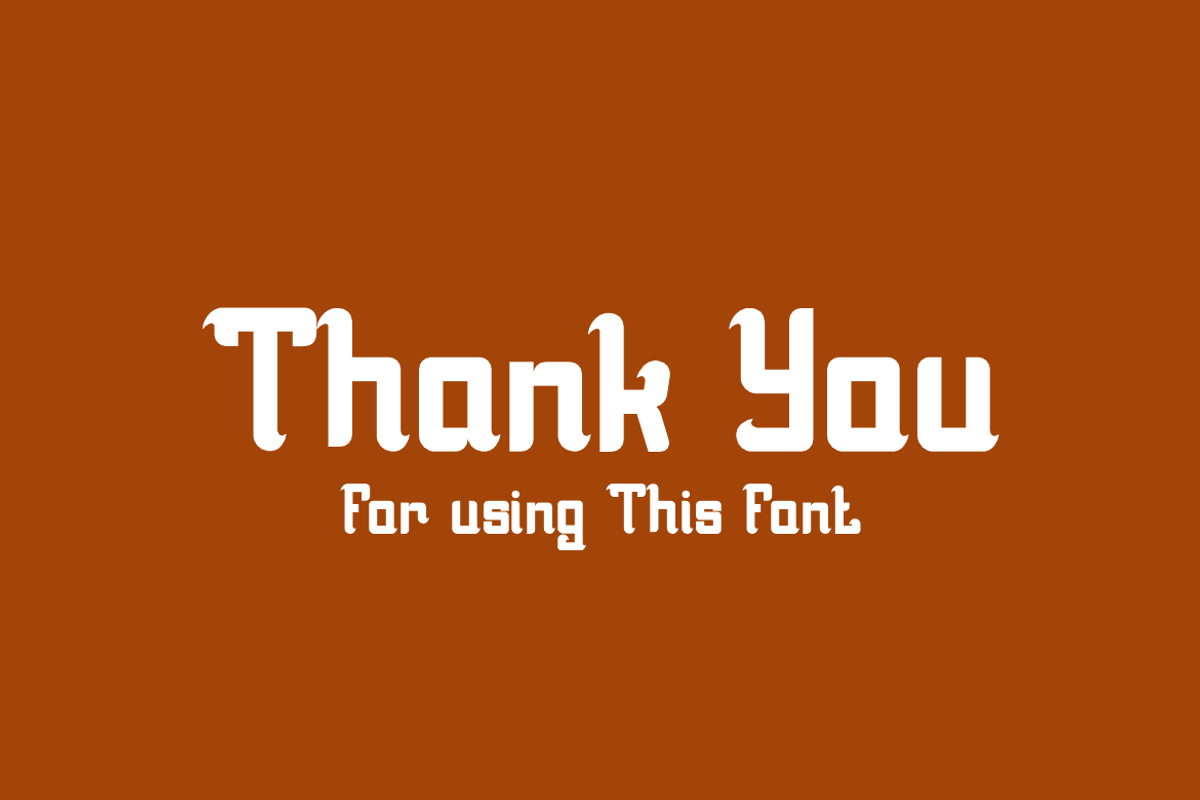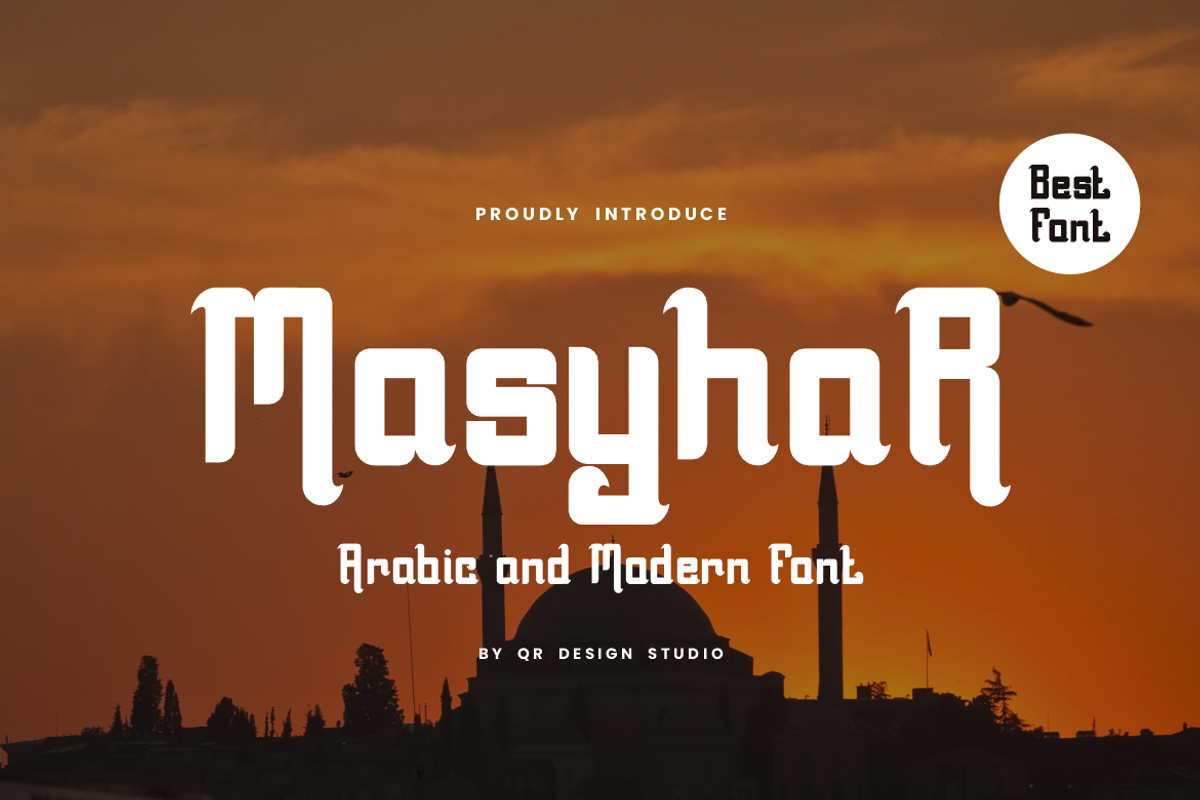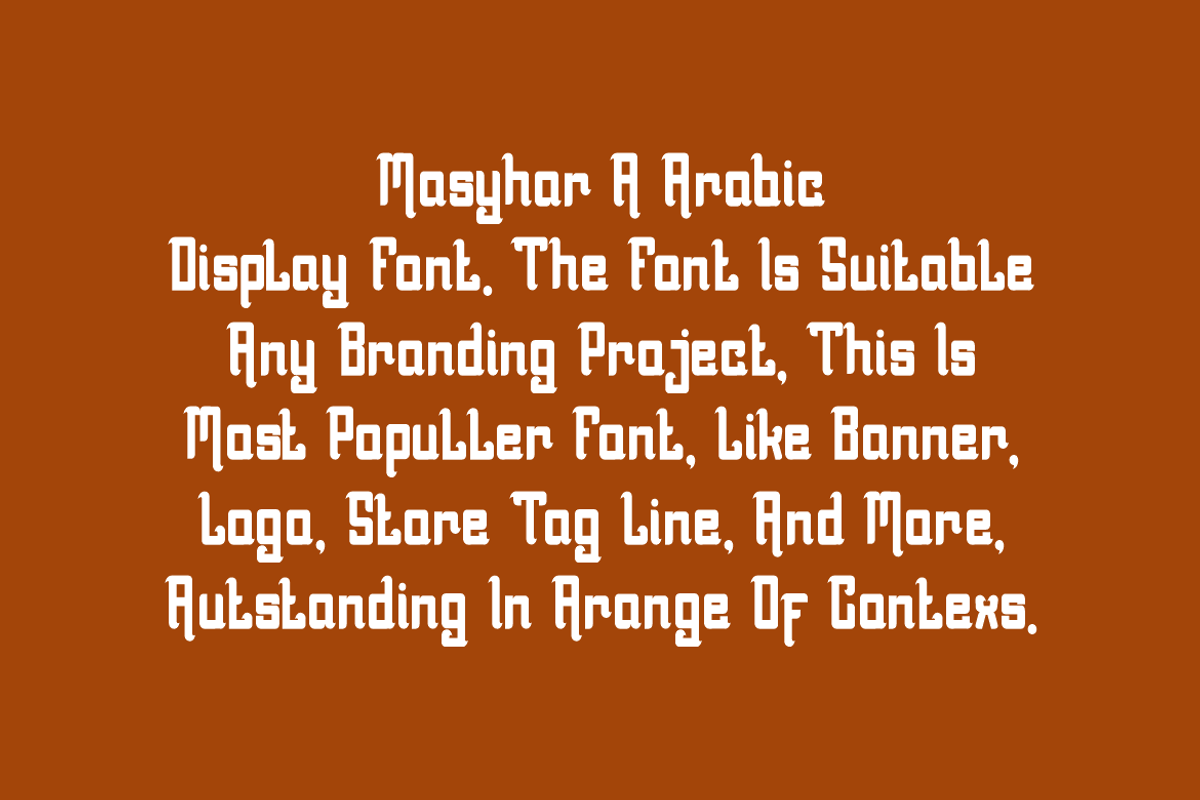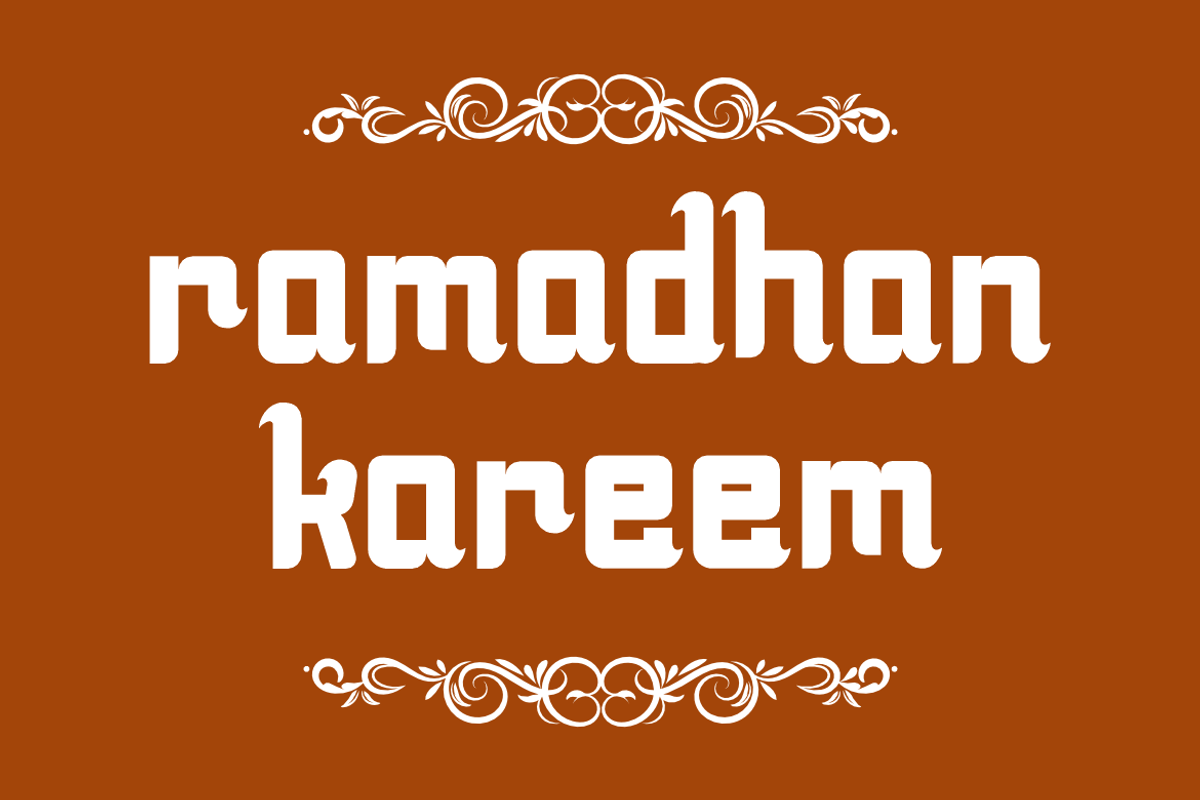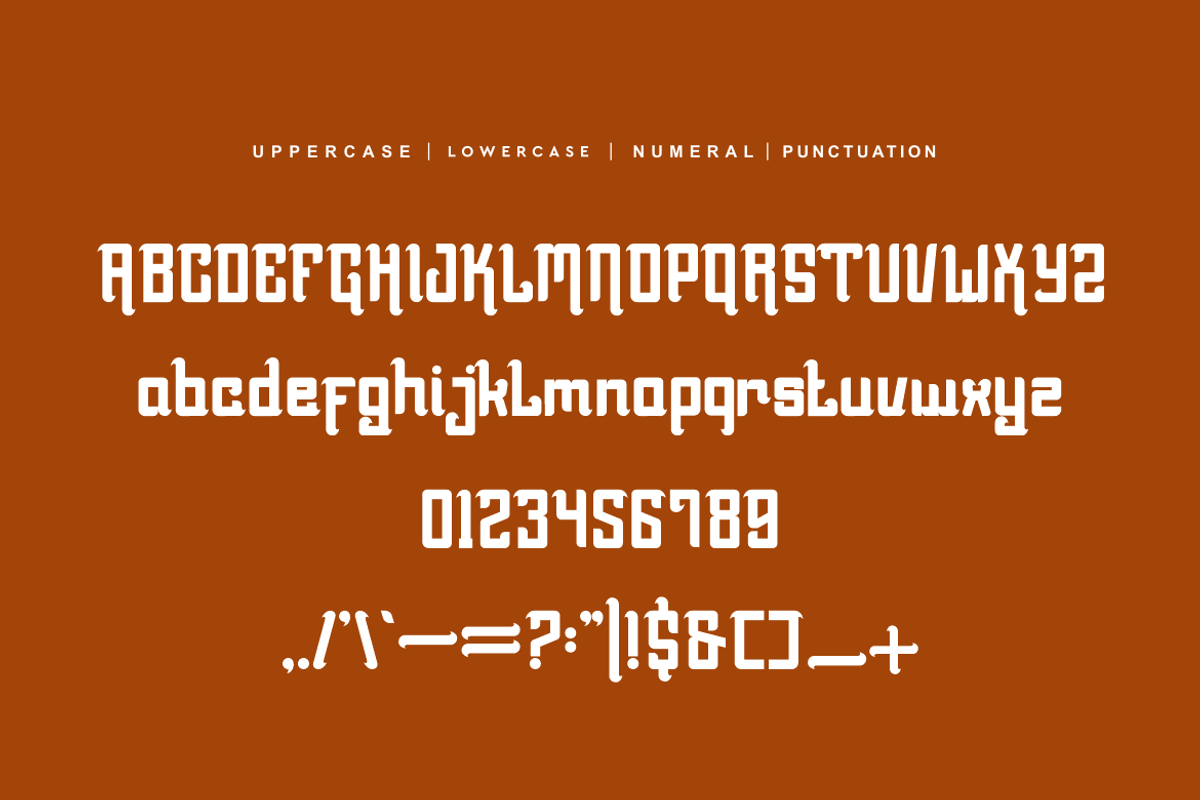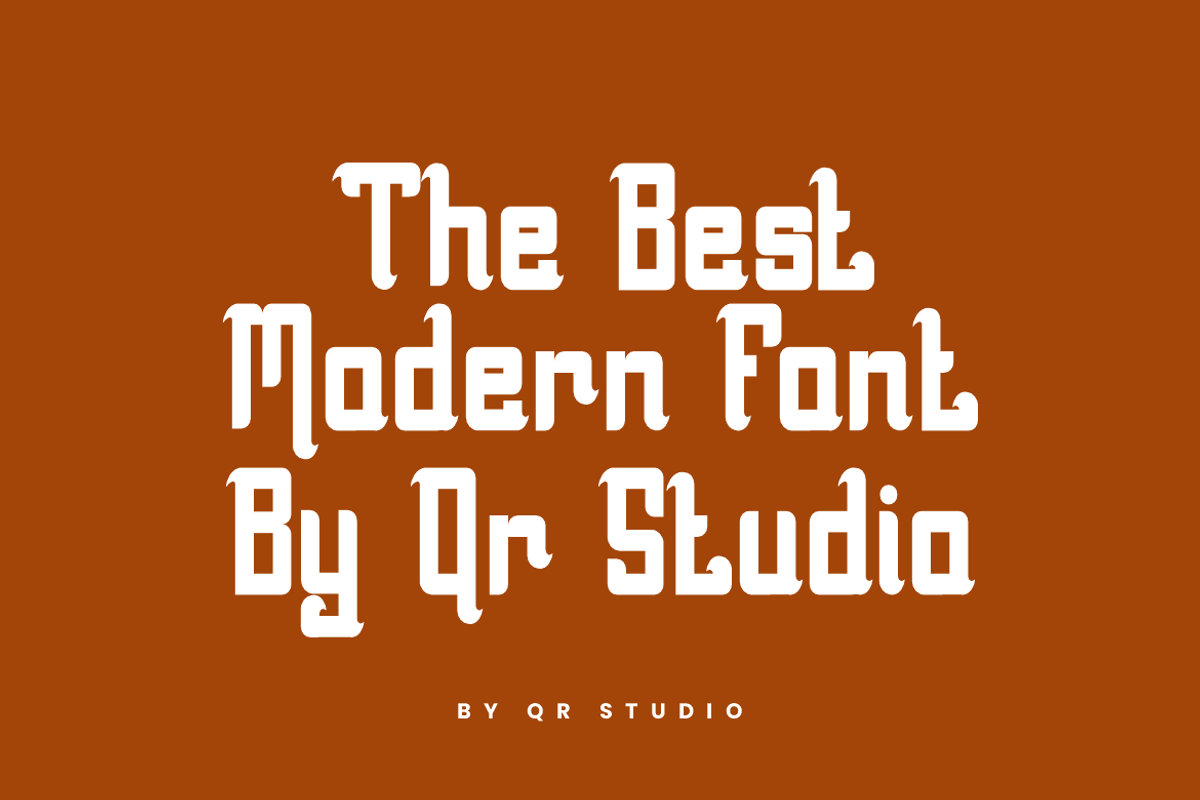
Masyhar - Arabic Font
Masyhar - Arabic Font is a bold and authentic display font. The font is suitable for any branding project like arabic, poster, logo, and many more. Outstanding in a wide range of contexts.